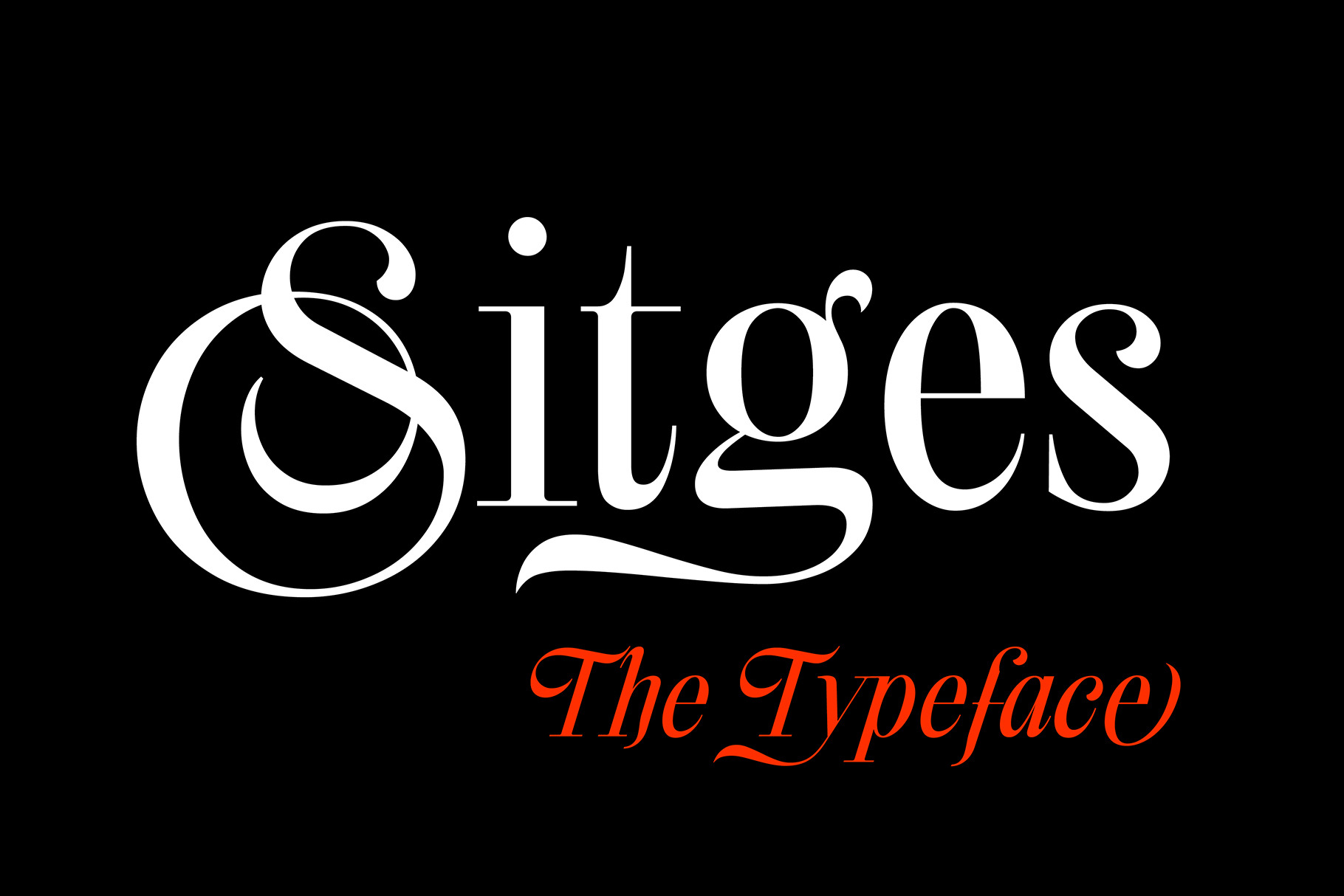
Sitges Typeface
Designed with versatility in mind, it offers multiple variations for each letter in both standard and italic styles, allowing designers to create words with character, soul, and a touch of Mediterranean charm.